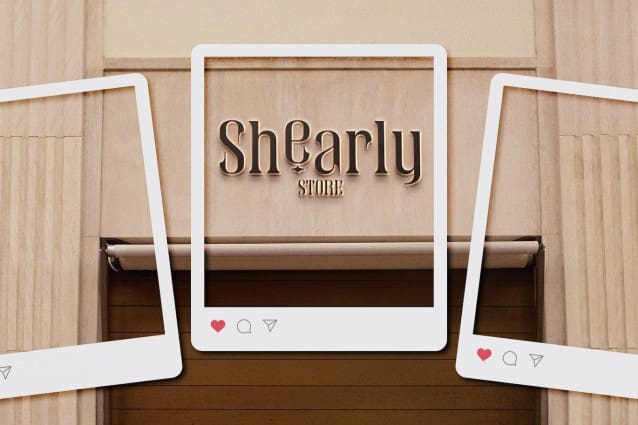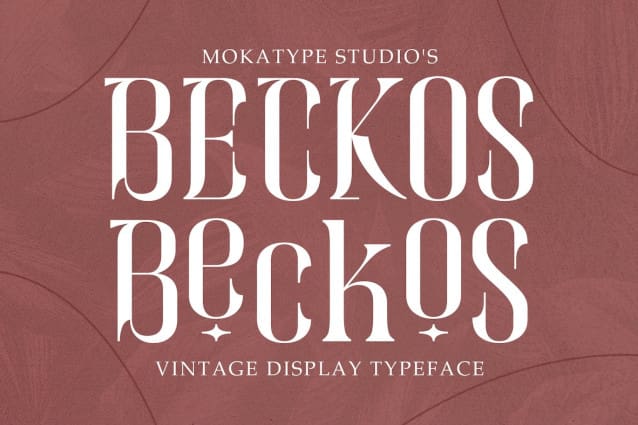
Beckos Font
Beckos Font is an experimental font inspired by Vintage typography and modern serif font. This font is developed to look elegant and classy. This font is built with alternate, ligature that can be used in any design need that wants to look elegant, classy, ​​and luxurious.